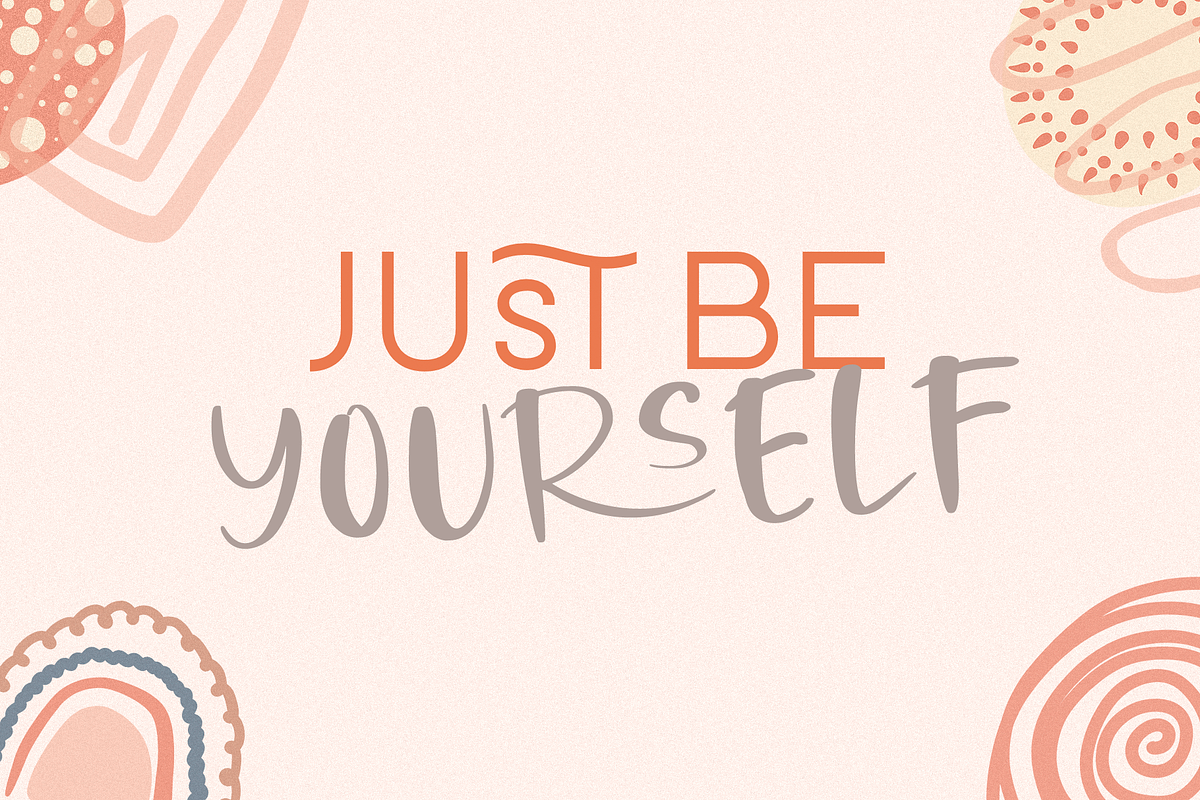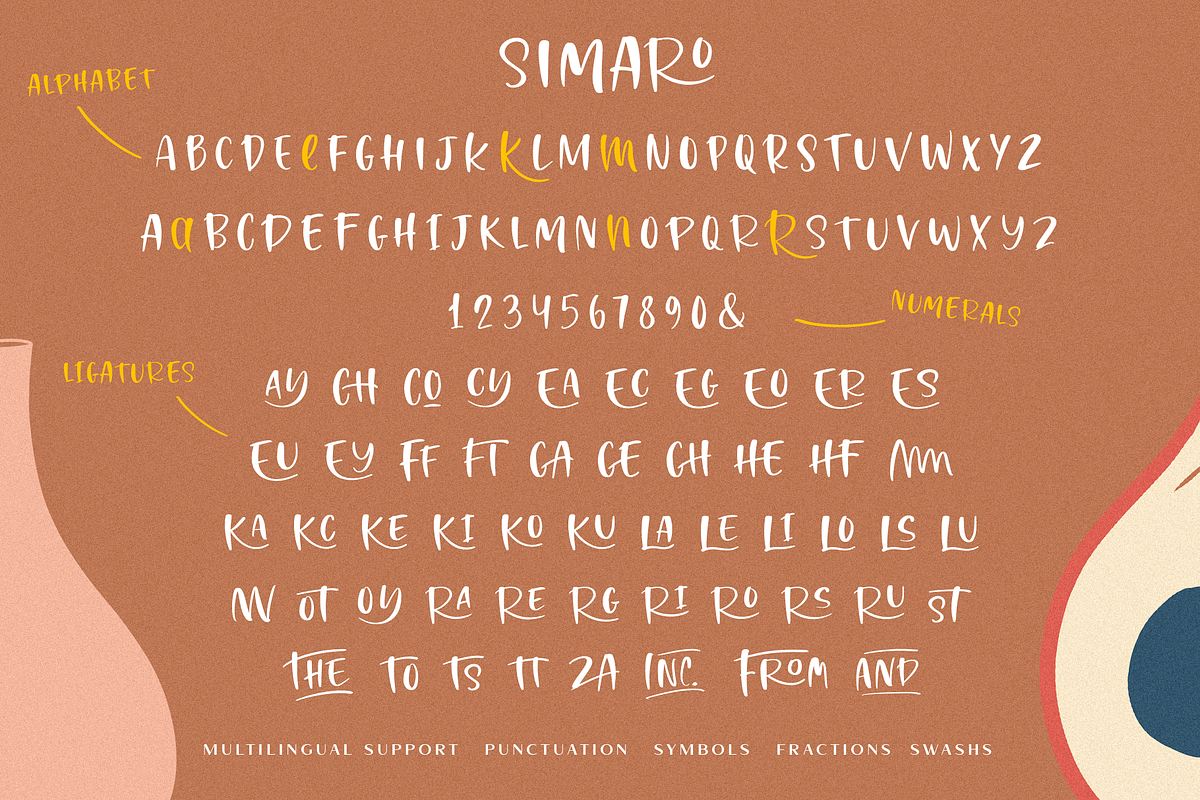
Simaro
Simaro this is a beautiful upper-case handwritten font with ligatures, alternates, and swashs. playful and relaxed, it will fit perfectly into any project, whether it's children's cards or fashion magazines and logos, it will look great everywhere. This font is easy to use has OpenType features and supported PUA encoded.
Following international symbols support: ÀÁÂÃÄÅĄÇĆÈÉÊËĘÌÍÎÏÐÑŃŁÒÓÔÕÖØÙÚÛÜŚŠŸÝŹŻŽßàáâãäåçèéêëìíîïðñòóôõöøùúûüýÿąćęłńśšźżž
Full alphabet with Uppercase and Lowercase A-Z
Numbers, fractions
Punctuation and symbols
Swash